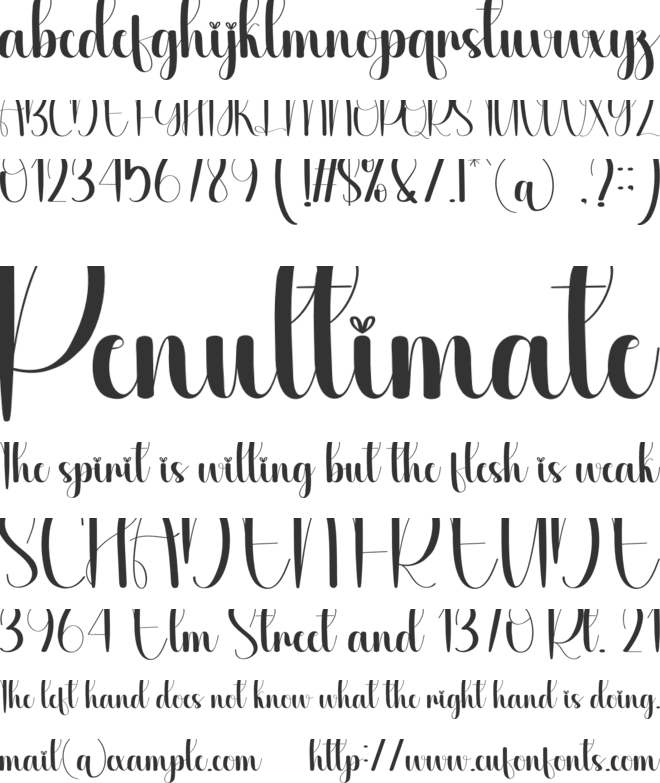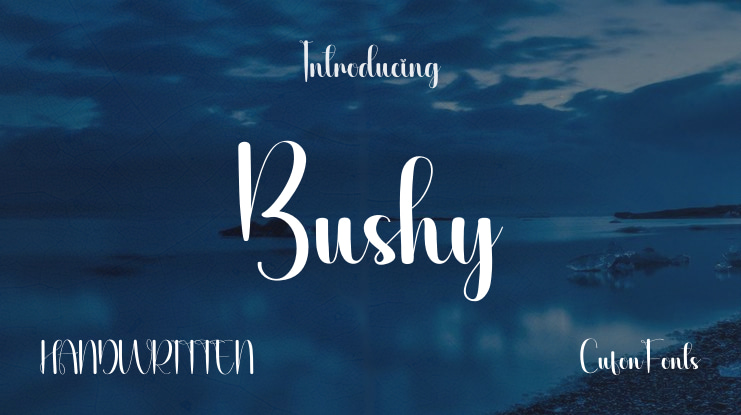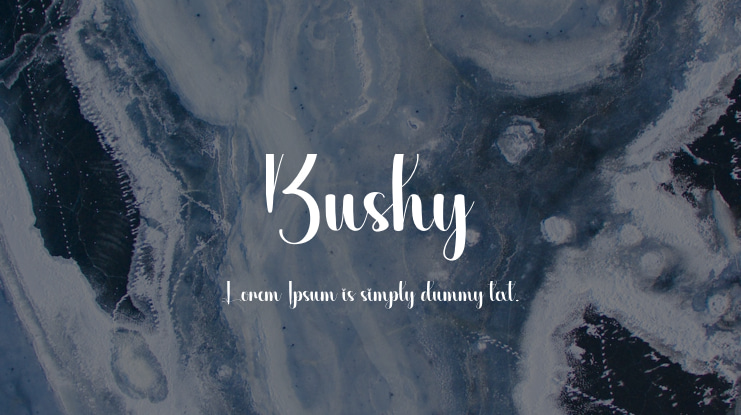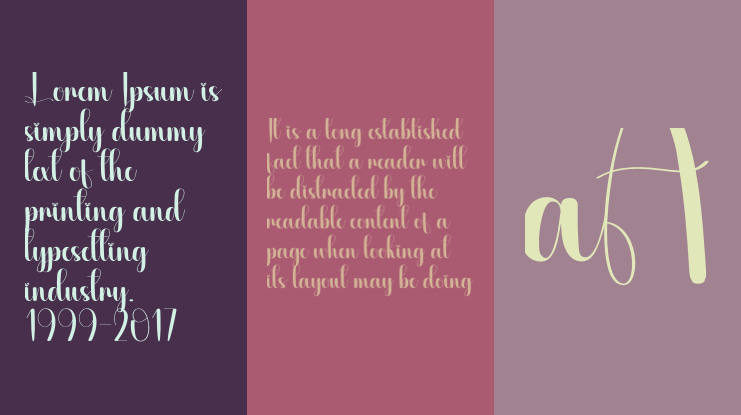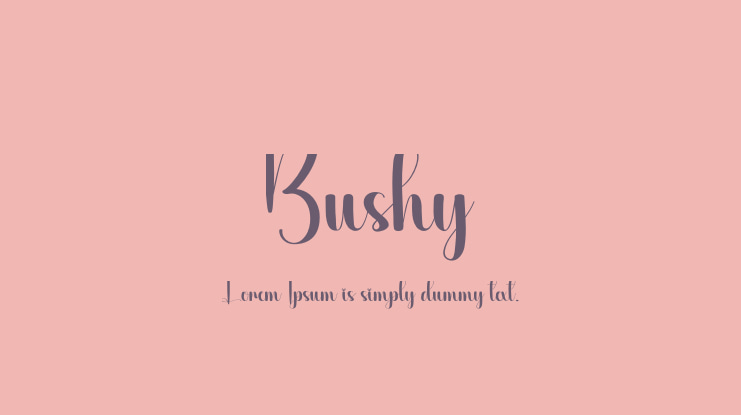
Bushy Font
Our latest style letters are ideal for wall displays, wedding invitations, social media posts, logos, advertisements, product packaging, designs, labels, photography, watermarks, invitations, stationery, and any project requiring tasteful handwriting.
Bushy font preview